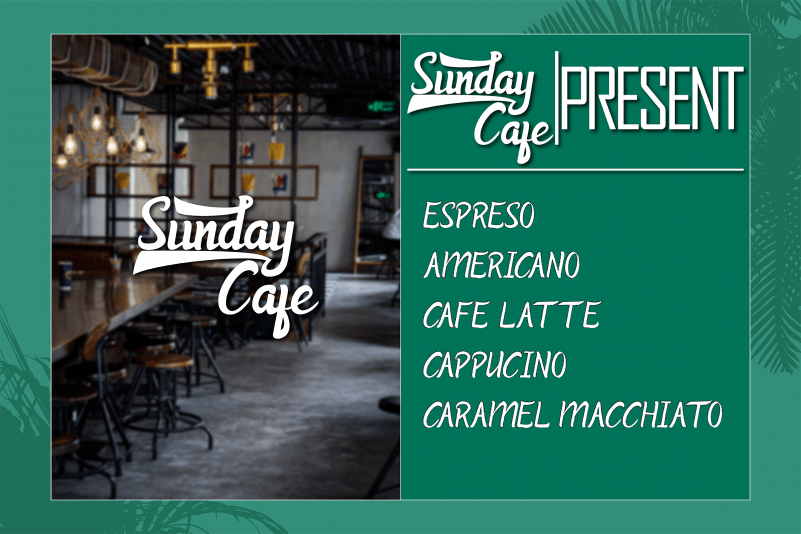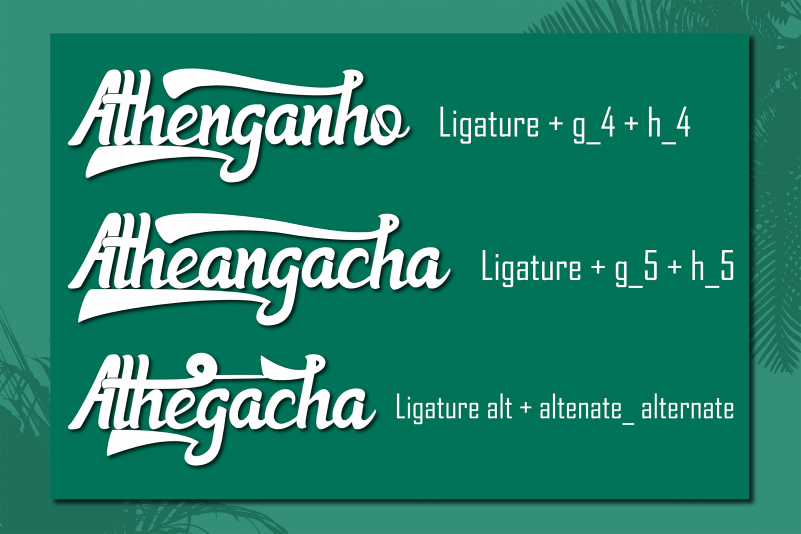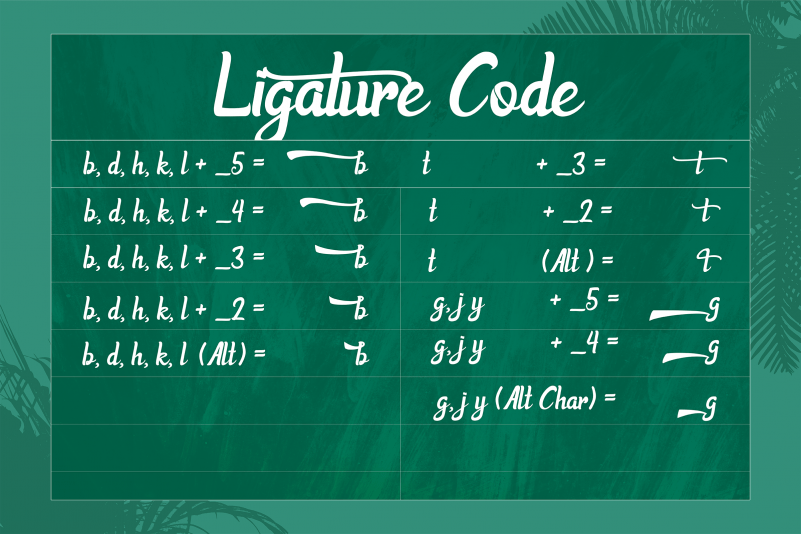
Athena Script Font
Athena Font is a name taken from the name of a holy goddess. Having extraordinary intelligence and beauty, this is where a description of the name of the Athena Script itself. Where has a handsome beauty and has many advantages.
This font is perfect for logos, brochures, pamphlets, invitations, flayers, and other design purposes.
-Alternate character
-Ligatures (Ligature Aa-Az and more)
-Multilingual SupportHow do I activate the tail ligature character in software design(Adobe Illustrator, Corel, Ps, etc.) ?
-b, d, h, k, l
Code = (b_5) (b_4) (b_3) (b_2) (drag and right click)
-g, j, y
Code = (g_5) (g_4) (drag and right click)
-t
Code = (t_3) (t_2) (drag and right click)